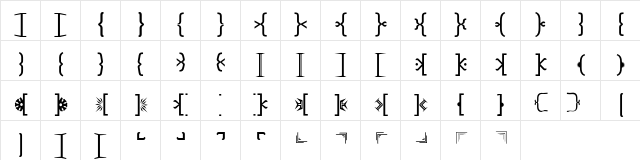
Lisboa Dingbats Bracket Regular Font Preview
Lisboa Dingbats Bracket Regular
Lisboa Dingbats Bracket Regular Font Details
Design Context for Lisboa Dingbats Bracket Typeface
Lisboa Dingbats Bracket takes a measured approach to typography — its balanced proportions and neutral character make it a reliable workhorse for both digital and print work.